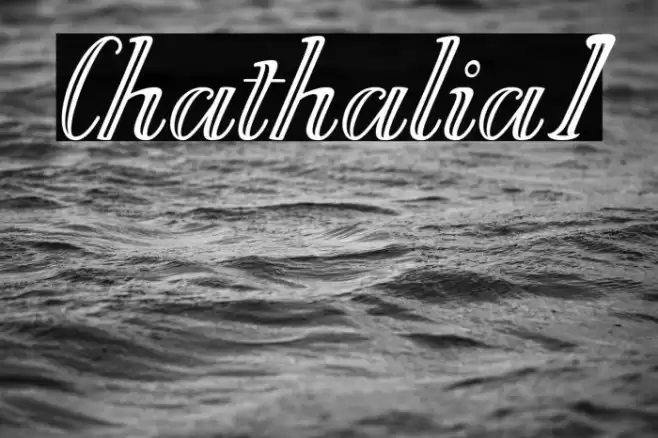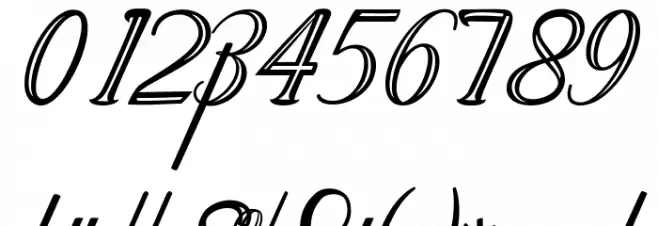
Chathalia1 Font
Chathalia1 Description
This font features an elegant, flowing script style with a classic and sophisticated appearance. The characters are interconnected with smooth, sweeping curves, giving it a sense of fluidity and grace. The uppercase letters are tall and slightly narrow, with distinctive loops and flourishes that add a decorative touch. The lowercase letters maintain a consistent rhythm, enhancing readability while retaining an artistic flair. The numerals are styled to match the letterforms, ensuring a cohesive look across all characters. This font's design is reminiscent of traditional calligraphy, making it suitable for projects that require a touch of elegance and refinement.
An elegant, flowing script font with classic calligraphic elements from Regular fonts.
- Proposed Projects: Ideal for wedding invitations, elegant branding, greeting cards, and formal event materials.
- Overall Style: Classic
- Use Case: Logos, Invitations, Decorative text